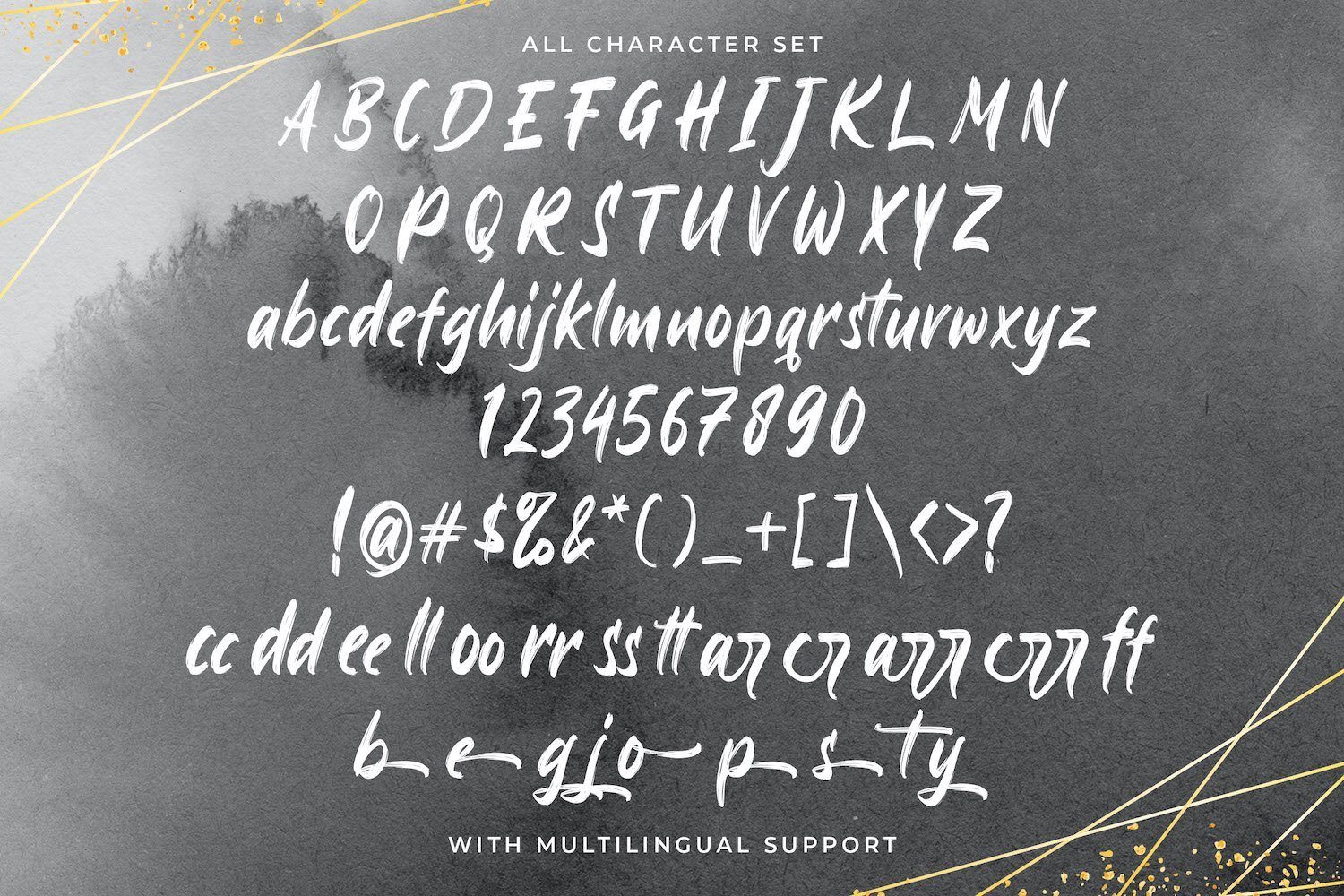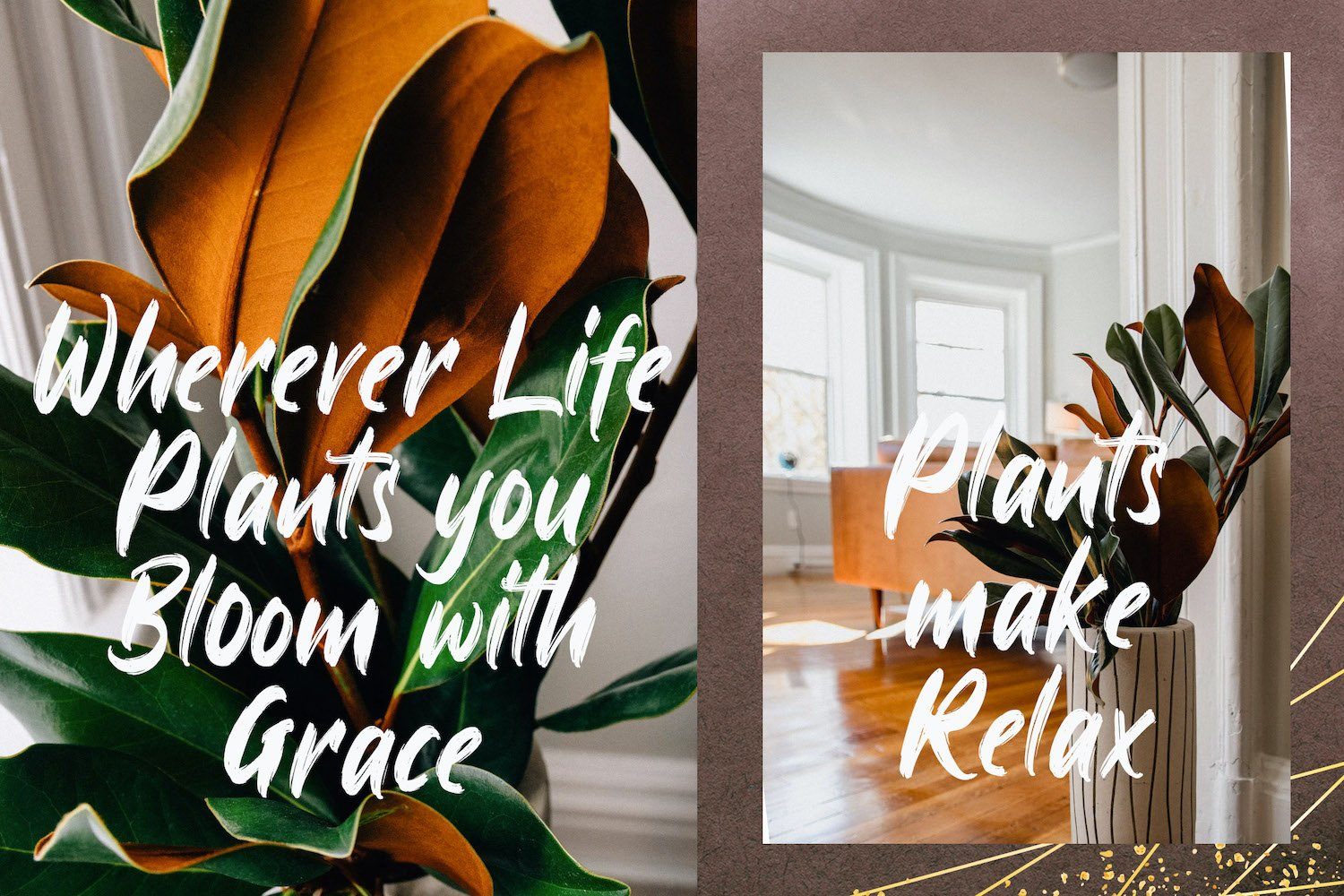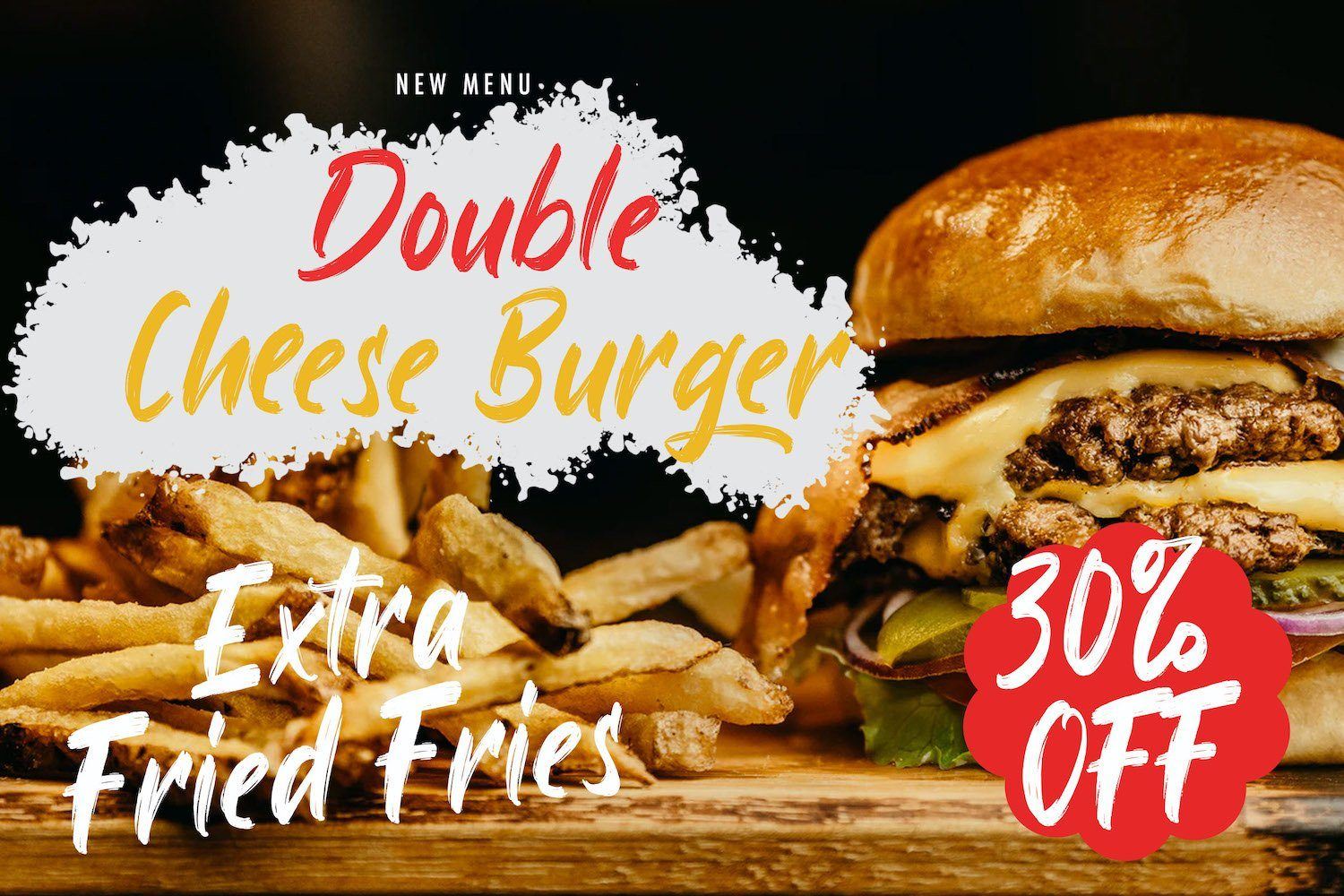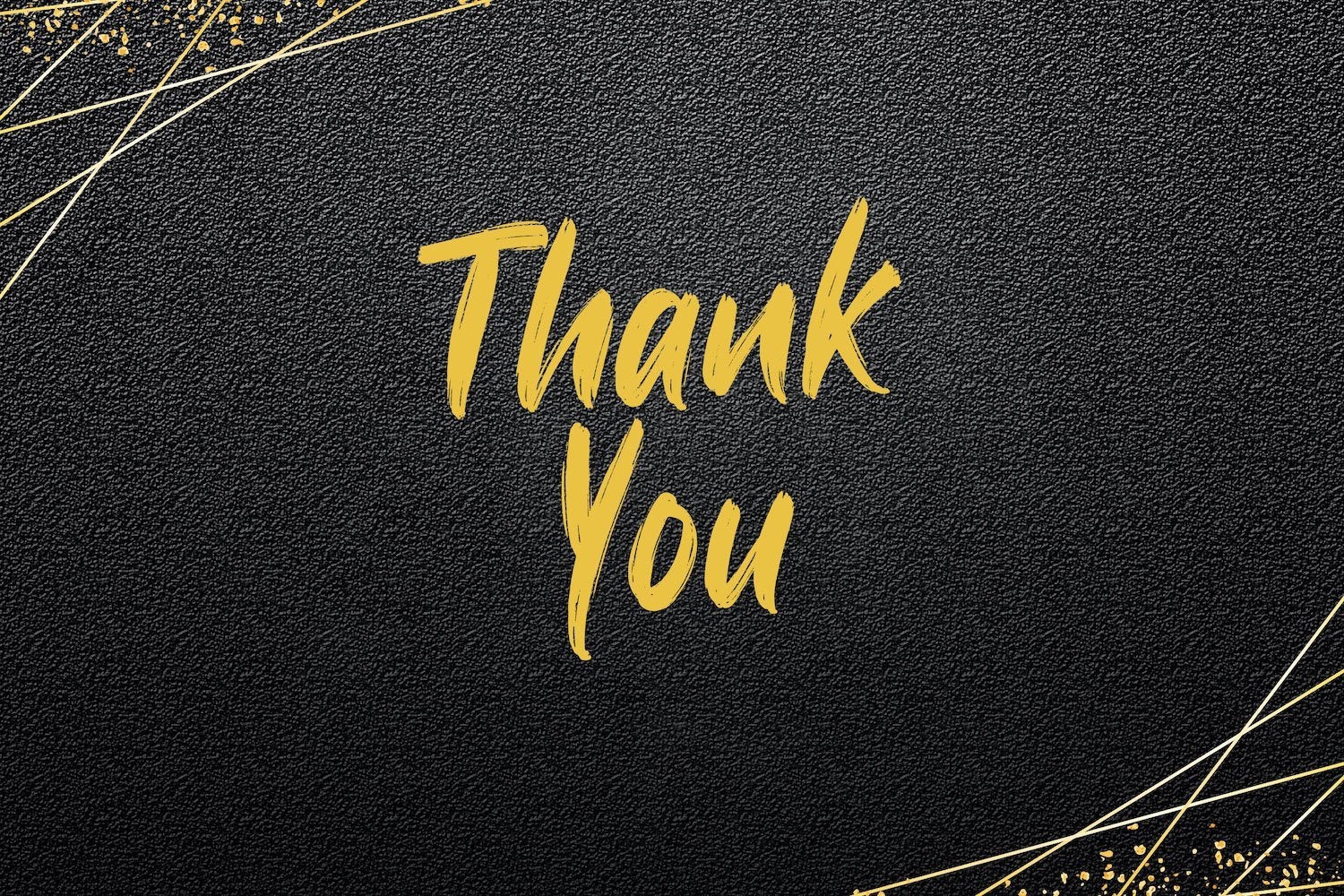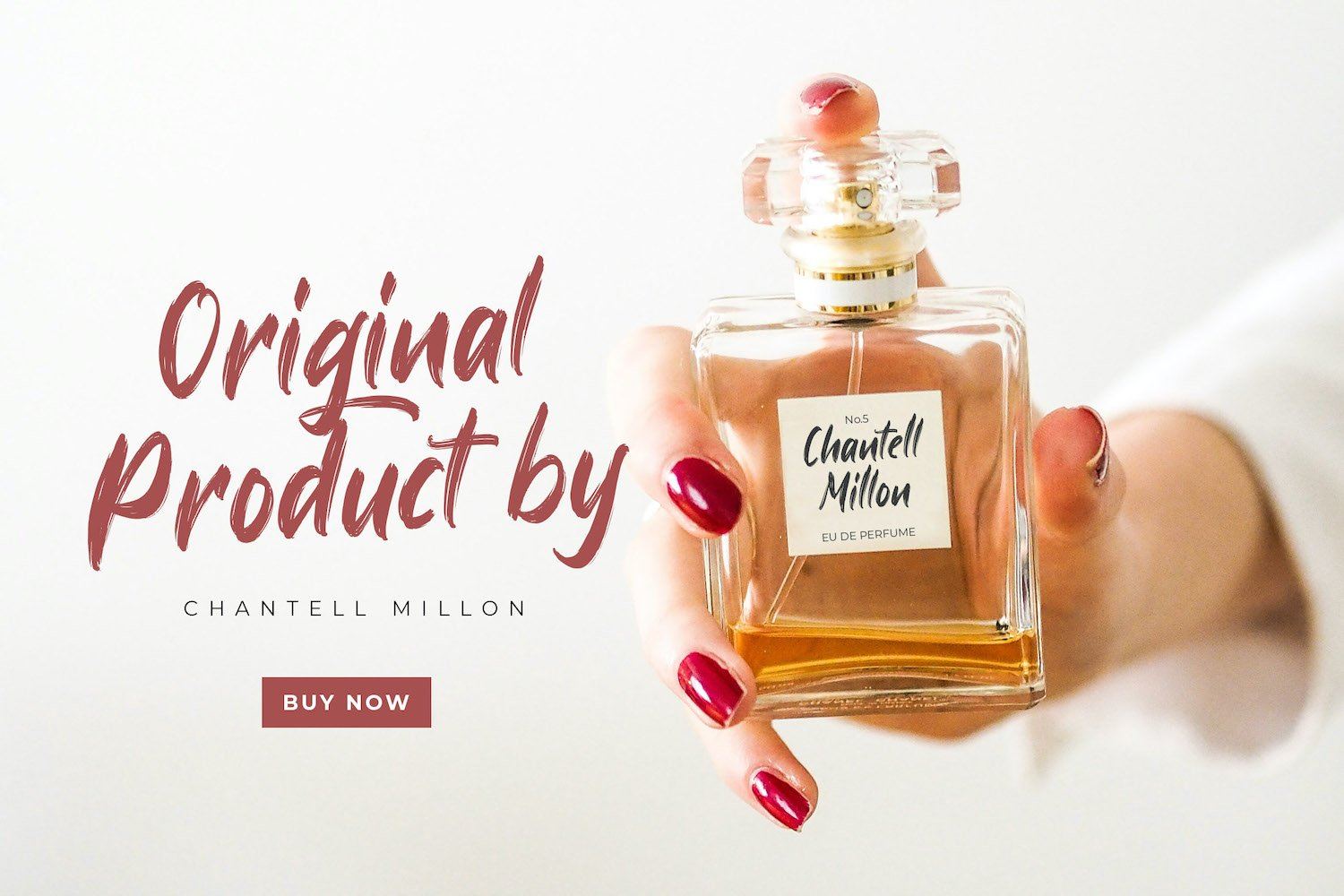
About Ayus – Handbrush Script Font
Introducing Ayus – Handbrush Script Font Ayus is a flowing and elegant handwritten font, created with the help of a brush pen. Get inspired by its unique and beautiful style and add it to your favorite designs! FEATURES – TTF/OTF/WOFF/WOFF2 – Ligatures – Alternates – Uppercase and Lowercase letters – Numbering and Punctuations – Multilingual Support – Works on PC or Mac – Simple Installation – Support Adobe Illustrator, Adobe Photoshop, Adobe InDesign, also works on Microsoft Word Hope you Like it. Thanks.